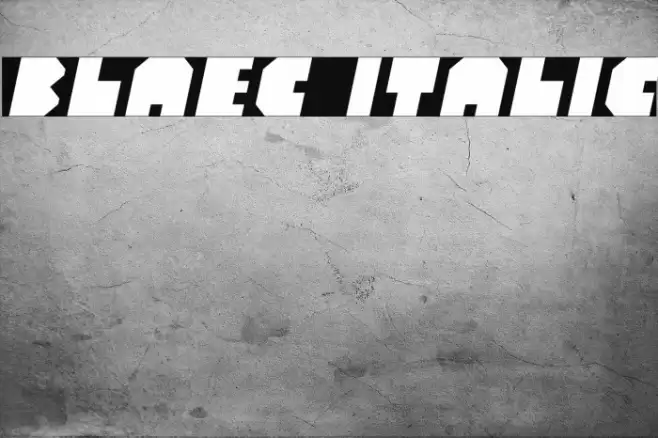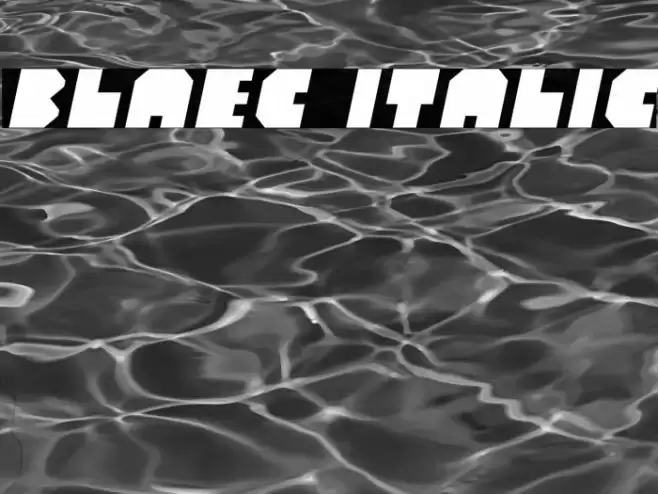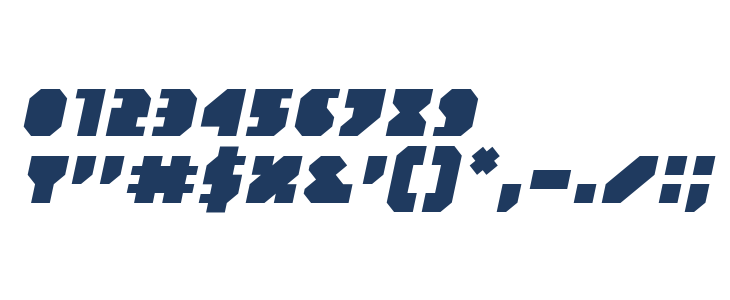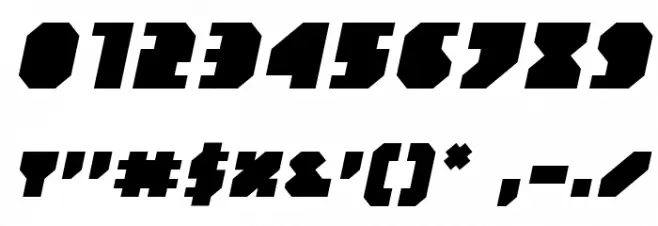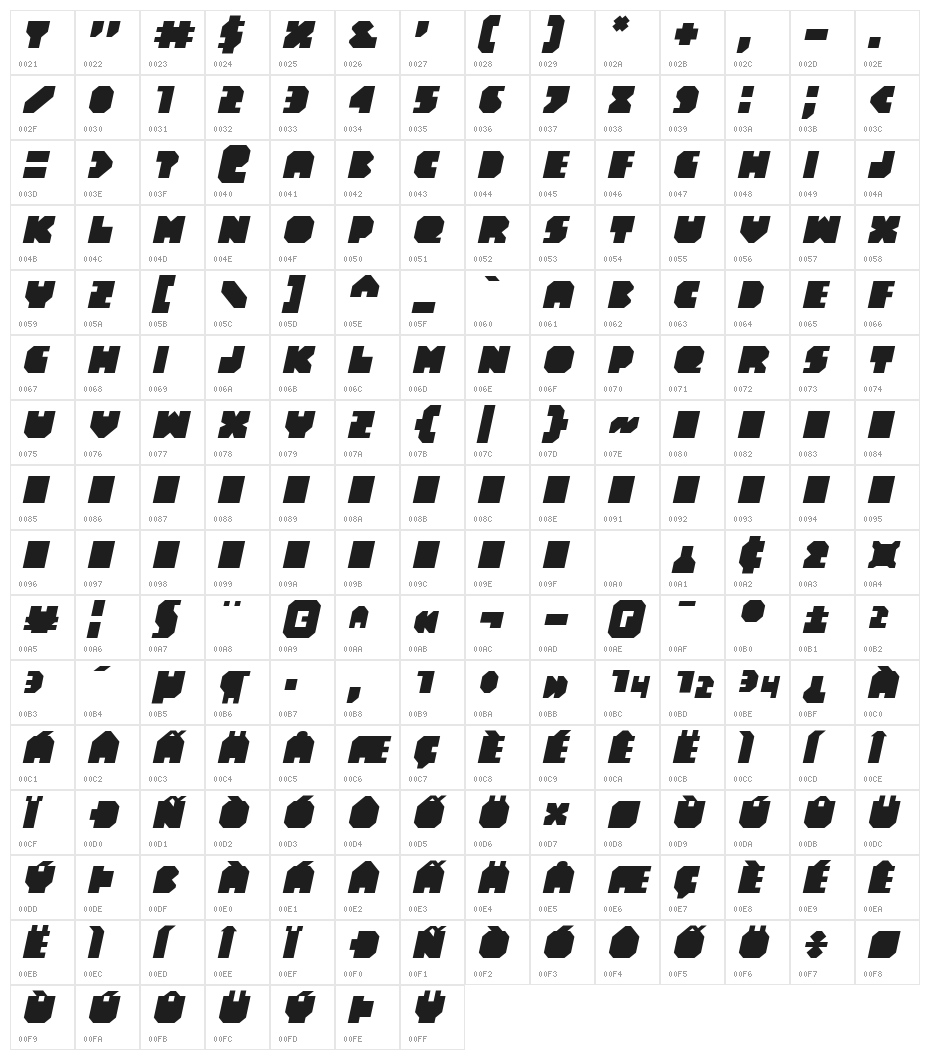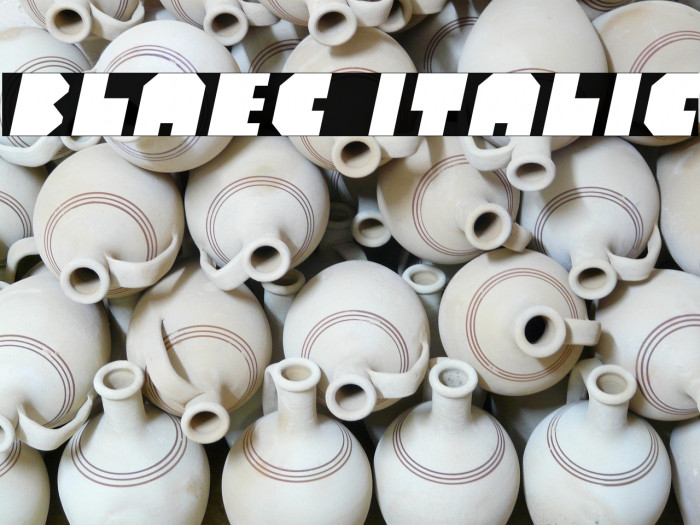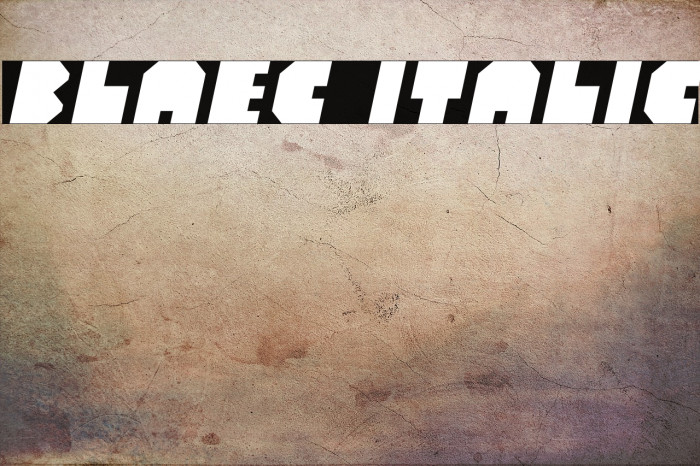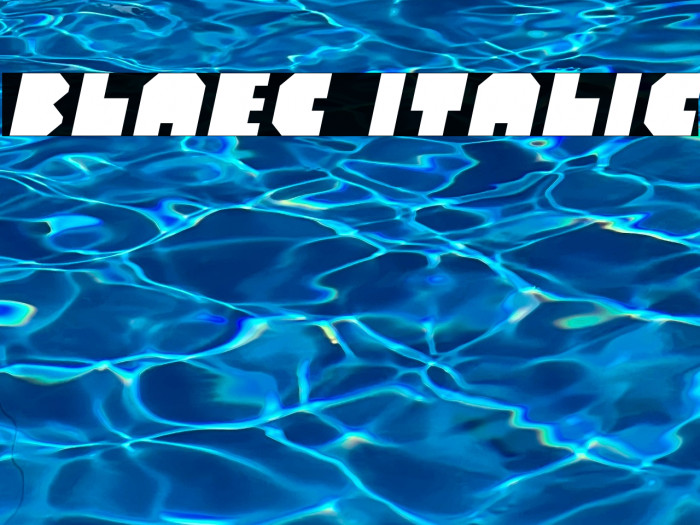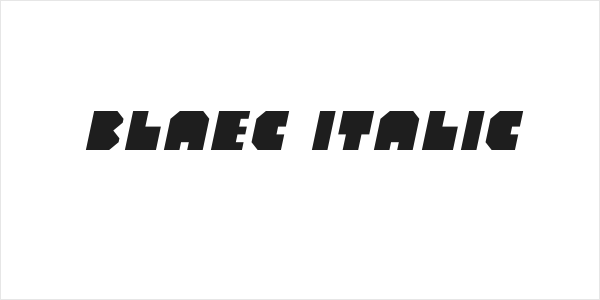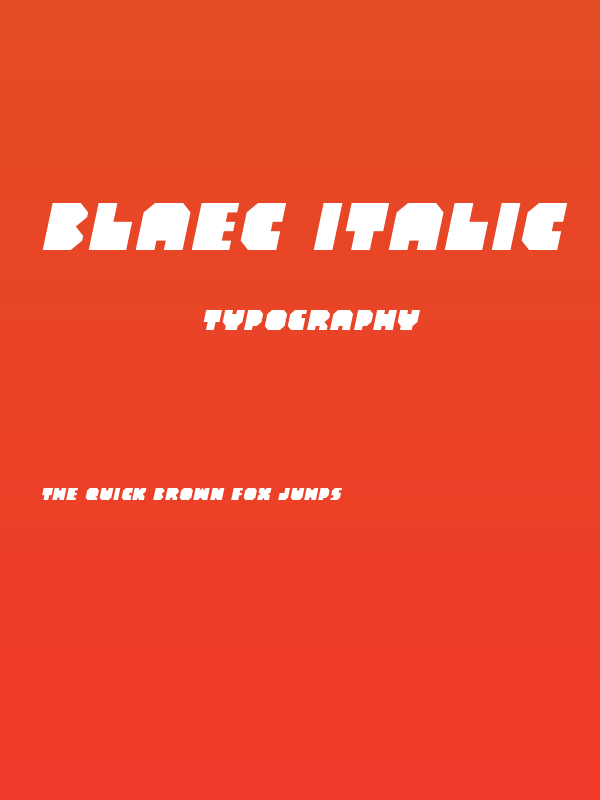
Blaec Italic Font
Blaec Italic Description
This font features a bold and angular design, characterized by its sharp edges and geometric shapes. The letters are heavily stylized, with a distinct slant that gives it an italicized appearance. The uppercase and lowercase letters maintain a consistent style, with a strong emphasis on diagonal lines and sharp corners. The numbers and special characters follow the same design principles, ensuring uniformity across the entire set. This font's unique style makes it stand out, offering a modern and edgy look that is both eye-catching and memorable.
A bold, angular, and italicized font with sharp geometric shapes from Uncategorized fonts.
- Proposed Projects: Ideal for branding, posters, and headlines that require a modern and bold statement.